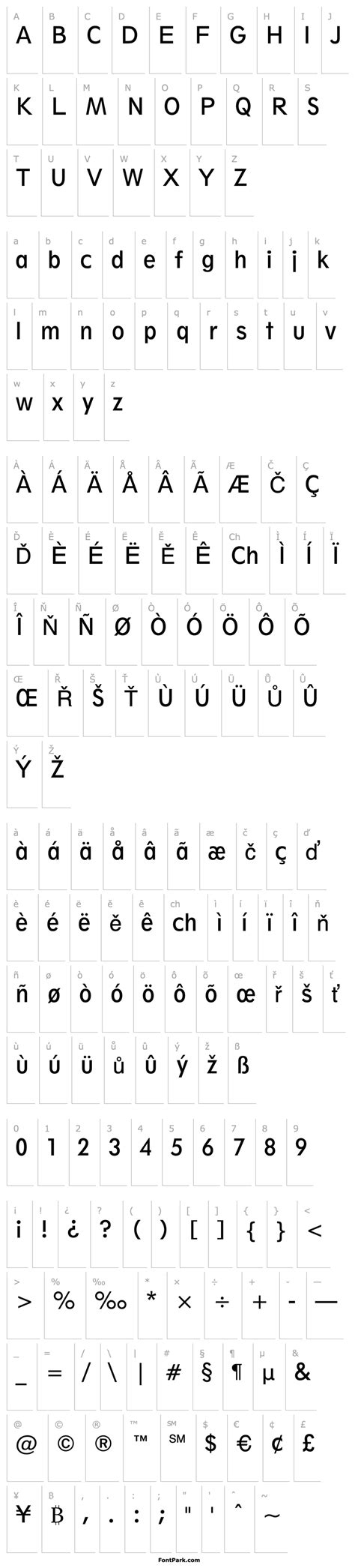
Geometric 212 BT Book Condensed Font: A Comprehensive Guide
Geometric 212 BT Book Condensed Font: A Deep Dive
Hey there, design enthusiasts! Let’s dive deep into the world of typography, specifically focusing on a real gem: the Geometric 212 BT Book Condensed font . This font, a member of the Geometric 212 family, is a condensed version and holds a special place in the hearts of many designers. It’s got that perfect blend of clean lines, modern aesthetics, and, of course, the ever-so-important readability, making it ideal for a vast array of applications. This comprehensive guide will explore everything from its origins and design characteristics to its practical uses and where you can snag it for your next project. We’ll also cover some similar font options and how to best use the Geometric 212 BT Book Condensed in your design work. Let’s get started, shall we?
Unveiling the Origins and Design of Geometric 212 BT Book Condensed
First off, let’s talk about the roots. The Geometric 212 font family, including the Geometric 212 BT Book Condensed , draws inspiration from the geometric sans-serif fonts of the early 20th century. Think Bauhaus, think clean lines, and think a strong emphasis on geometric shapes. The “BT” in the name typically refers to Bitstream, a well-known font foundry. The “Book” designation often indicates a regular or slightly heavier weight suitable for body text, while the “Condensed” tells us the font is narrower than a standard width, allowing more text to fit into a given space. The core of Geometric 212 BT Book Condensed lies in its simplicity and functionality. It’s designed to be clean, clear, and easy on the eyes. The characters are typically constructed using basic geometric shapes like circles, squares, and triangles, giving it a modern and almost mathematical feel. This font is a workhorse, designed to be versatile. Its condensed nature makes it especially useful for headlines, subheadings, and any situation where space is at a premium. The font’s consistent stroke weight contributes to its readability, even at smaller sizes. This makes it a solid choice for everything from printed materials to digital interfaces. The Geometric 212 BT Book Condensed is not just about aesthetics; it’s about functionality. It’s a testament to the idea that good design is about making information accessible and attractive.
What truly sets this font apart, especially the condensed version, is its ability to pack a punch in tight spaces. You can fit more words on a line without sacrificing readability. This makes it perfect for situations where space is at a premium – think newspapers, brochures, or even web layouts where you want to maximize the use of horizontal real estate. Its geometric nature gives it a contemporary feel that works well in a variety of design contexts. It’s a font that doesn’t scream for attention, but rather provides a clean, clear, and efficient way to communicate your message. The careful balance of form and function makes it a favorite among designers who need a reliable and stylish typeface. Ultimately, the Geometric 212 BT Book Condensed is a great font because of its balance. You can use this font for both headlines and body text, and it’ll look great. This unique combination makes it a versatile choice for designers. The condensed style is its biggest advantage.
Where to Use Geometric 212 BT Book Condensed: Practical Applications
So, where does this awesome font shine? The Geometric 212 BT Book Condensed is incredibly versatile, making it suitable for a wide range of projects. Think about the need for impactful headlines that still maintain a modern and professional appearance. The condensed nature of the font means you can squeeze in more text without sacrificing the visual impact. This makes it perfect for posters, website headers, and even social media graphics. Let’s explore some specific applications, shall we?
• Print Design: For print materials such as brochures, magazines, and newspapers, the Geometric 212 BT Book Condensed font works wonders. Its condensed form is perfect for fitting more text into a limited space, and its clean lines ensure readability. The font’s simple design makes it a good fit for body text, especially in layouts with lots of visual elements. Consider it for captions, call-out boxes, or any place where you need text to be clear and concise. The key is to maintain a balance between the text and the overall design aesthetic.
• Digital Design: In the digital realm, this font is equally useful. Websites, apps, and other digital interfaces can benefit from its modern look and space-saving features. It’s great for headings, navigation menus, and even body text in specific scenarios. Make sure you use the font in a way that compliments the user experience. Its clean design ensures it looks good on screens of all sizes. The font’s simplicity makes it easy to integrate it with other design elements. Websites with a focus on usability and modern design aesthetics can greatly benefit from this.
• Branding: The Geometric 212 BT Book Condensed can play a key role in brand identity. Its clean lines and modern feel lend themselves well to creating a brand identity. It’s suitable for logos, taglines, and brand communications. The font projects professionalism and clarity, which are essential for creating trust and recognition. Think about how major brands use fonts to convey their values and build relationships with their audience. The choice of font is critical for establishing a brand’s personality. The Geometric 212 BT Book Condensed can be the perfect choice. Remember to use the font consistently across all of your brand materials to create a cohesive and recognizable look.
The possibilities are really endless, guys! Consider how the Geometric 212 BT Book Condensed can enhance the message you’re trying to convey. Experiment with different weights and sizes to see what works best for your needs. Always prioritize readability and ensure that the font complements your overall design. Its versatility is really an advantage.
Conclusion: Embracing Geometric 212 BT Book Condensed
So, there you have it, folks! We’ve covered the ins and outs of the Geometric 212 BT Book Condensed font. We’ve explored its design, where to use it, where to find it, and even some alternatives. By understanding this font’s strengths and how to use it effectively, you can make your designs stand out. The Geometric 212 BT Book Condensed is a valuable tool in any designer’s toolbox. Its clean lines and condensed nature make it a versatile choice. It is a reliable font. Whether you’re a seasoned pro or just starting out, this guide is designed to help you utilize the Geometric 212 BT Book Condensed effectively in your design projects. Good luck, and happy designing! Go out there, experiment, and have fun. That’s what design is all about! Remember, the best designs are the ones that not only look good, but also effectively communicate your message. The Geometric 212 BT Book Condensed font can help you do just that! Now, go create something amazing! The key is to experiment and find what works for you. Use this knowledge, and you’ll be on your way to creating stunning designs.